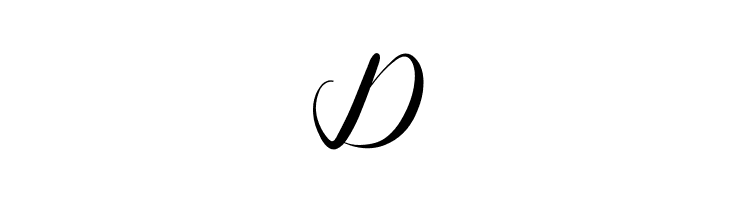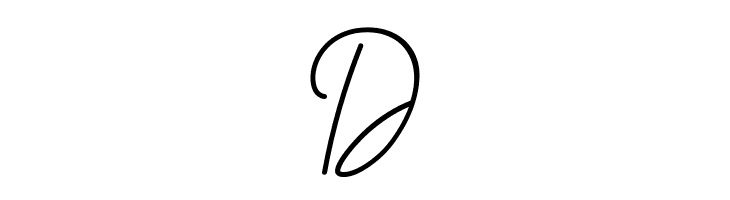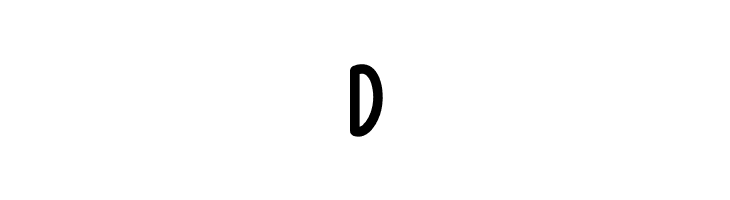
A bold, rounded font with a playful and friendly style.
A dynamic and elegant script font with bold, sweeping letterforms and high contrast.
A bold, playful font with a hand-drawn, marker-like style.
A playful, hand-drawn sans-serif with rounded, informal shapes.
A lively, flowing script font with elegant, connected strokes.
A graceful script font with flowing, interconnected letters and elegant flourishes.
A modern, cursive font with elegant, flowing characters.
A bold, decorative font with a grunge-like, distressed style.
An italicized, decorative font with a hand-drawn, distressed texture.